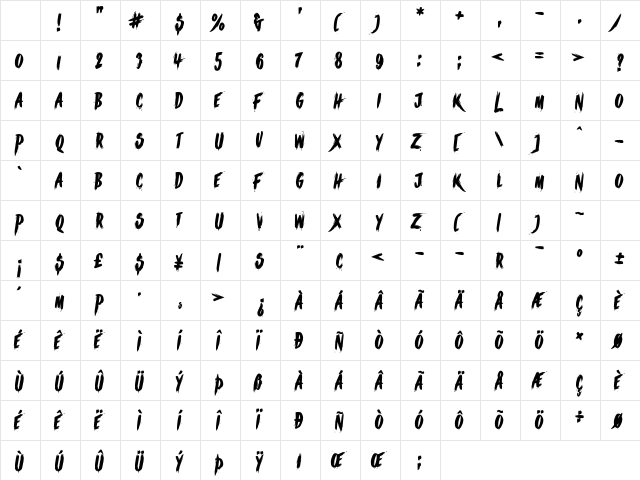
Complete Spirit Fox Regular glyph index. Displaying only characters natively supported by Spirit Fox Regular font.
Spirit Fox is a composed and adaptable typeface that performs quietly and consistently across a wide range of design contexts.